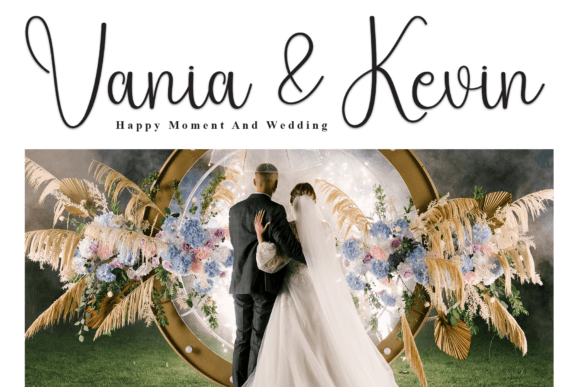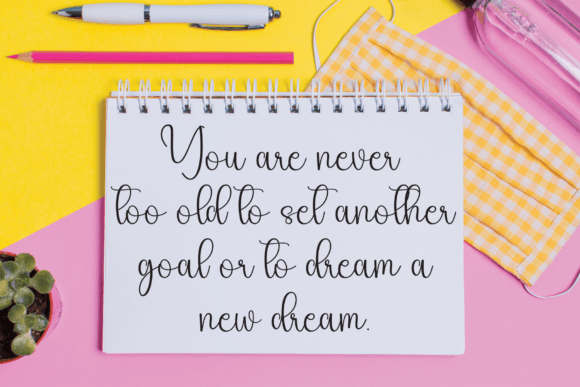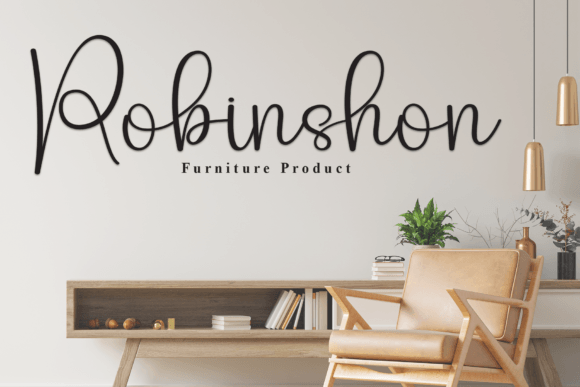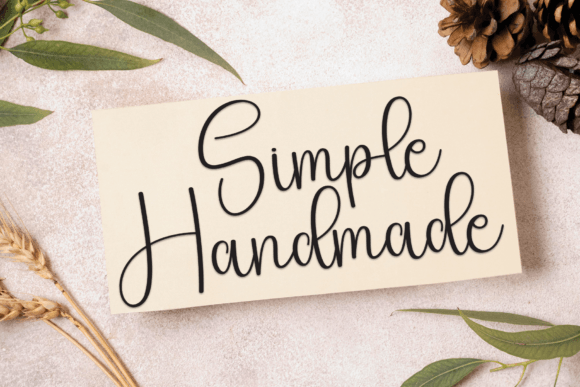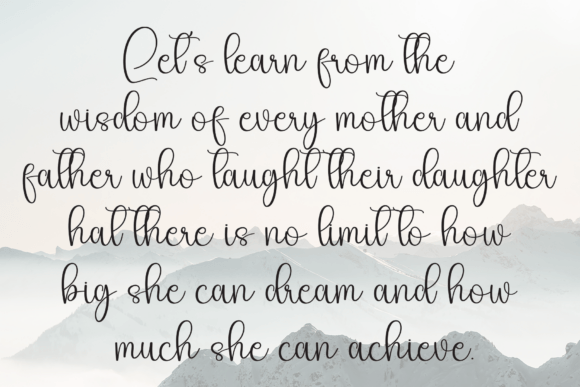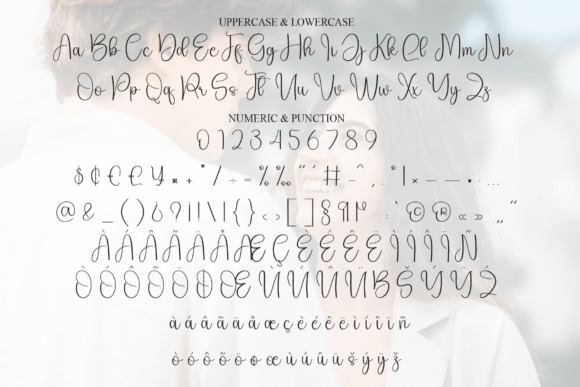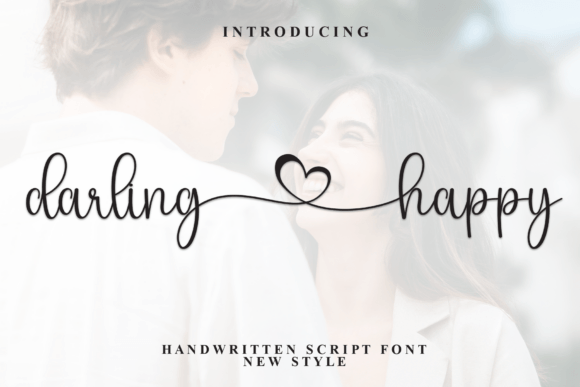
Introducing Darling Happy Font: Elevate Your Designs with Elegance and Charm
In the world of typography, a font can make all the difference in transforming a design from ordinary to extraordinary. For designers and crafters seeking to add a touch of sophistication and warmth to their creations, Darling Happy Font is an exceptional choice. This stylish handwritten script font is designed to exude elegance and charm, making it perfect for a variety of design applications.
The Unique Characteristics of Darling Happy Font
Darling Happy Font boasts fluid strokes and a natural flow that creates a captivating, sophisticated look. Its handwritten script style gives it a personal and approachable feel, making it ideal for designs that require a touch of warmth and personality. The font’s elegance and charm are evident in its smooth connections and balanced letterforms, which work harmoniously to create a beautiful visual experience.
Darling Happy Font is incredibly versatile and can be used in a range of design projects, including:
• Invitations: Add a touch of elegance to wedding invitations, birthday party invites, or any other special occasion with Darling Happy Font.
• Branding: Use Darling Happy Font to create a unique and memorable brand identity that reflects your business’s personality and values.
• Social Media: Elevate your social media presence with Darling Happy Font, perfect for creating engaging graphics, quotes, and posts that capture your audience’s attention.
Why Choose Darling Happy Font?
Darling Happy Font offers several benefits that make it an excellent choice for designers and crafters:
• Unique and Creative: Darling Happy Font provides a distinctive and creative way to express yourself and bring your designs to life.
• Elegant and Sophisticated: The font’s elegant and sophisticated look makes it perfect for designs that require a touch of luxury and refinement.
• Easy to Read: Despite its elegant and cursive nature, Darling Happy Font remains easy to read, making it suitable for body text and headlines.
• Versatile: Darling Happy Font can be used in a variety of design applications, from digital to print, and can be easily paired with other fonts to create a unique look.
Tips for Using Darling Happy Font Effectively
To get the most out of Darling Happy Font, consider the following tips:
• Pair with Contrasting Fonts: Pair Darling Happy Font with a contrasting font to create visual interest and add depth to your design.
• Use for Headlines and Titles: Darling Happy Font is perfect for headlines and titles, where its elegant and sophisticated look can shine.
• Experiment with Colors: Try Darling Happy Font with different colors to find the perfect combination that complements your design.
Darling Happy Font is a beautiful and elegant handwritten script font that can elevate your designs with its charm and sophistication. Its versatility, creativity, and ease of use make it an excellent choice for designers and crafters looking to add a personal touch to their creations. Whether you’re designing invitations, branding materials, or social media graphics, Darling Happy Font is sure to bring a sense of warmth and elegance to your designs.